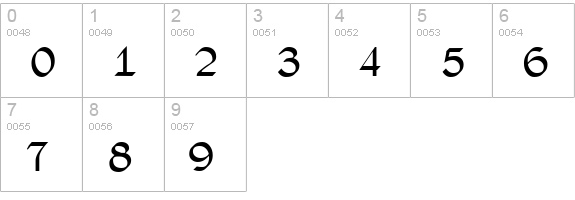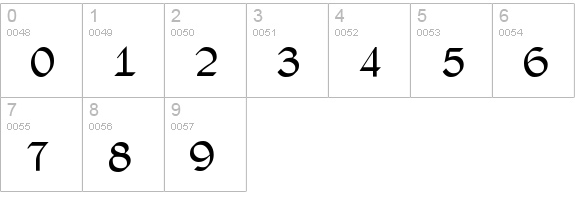
RundigsburgMedium Font Details
RundigsburgMedium font is a versatile and elegant typeface that exudes sophistication and style. With its balanced proportions and clean lines, this font is perfect for a wide range of design projects, from branding to editorial design. The classic yet modern aesthetic of RundigsburgMedium font makes it a timeless choice for any designer looking to make a statement. What sets RundigsburgMedium font apart is that it is available for free download at FontsMarket.com. This means you can access this high-quality font without any cost, making it a valuable addition to your font library. Whether you're working on a professional project or a personal one, RundigsburgMedium font is sure to elevate your design and leave a lasting impression. Download it today and see for yourself the impact this font can have on your designs.